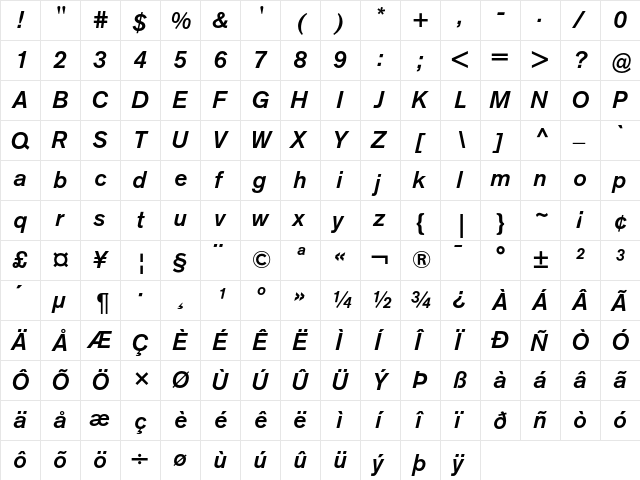
Berthold Akzidenz Grotesk BE Medium Italic
Design Context for Berthold Akzidenz Grotesk BE Typeface
Berthold Akzidenz Grotesk BE has the quiet confidence of well-executed sans-serif typography: versatile, unobtrusive, and dependable at any size. Its italic angle brings a sense of urgency and motion to the letterforms.
Font Pairing: Works well alongside a characterful serif or display font that can carry the expressive load while Berthold Akzidenz Grotesk BE handles the functional copy.
Pro Tip: Use Berthold Akzidenz Grotesk BE for UI labels, navigation, and short-form body copy where clean legibility is the priority.